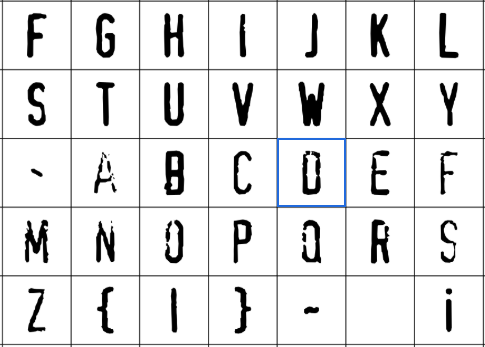
“You wouldn’t steal a car” anti-piracy campaign may have used pirated fonts
Aquilina, who was speaking generally and not on the specifics of the anti-piracy campaign and its font use, said that using a font from a free source, with an “effectively implied license to use it,” could be “a good defense,” though “not a complete defense.” Typically, a rightsholder would go after websites distributing copies of their font, not after users of the end product.
Fonts used commercially that happen to be exact copies of existing and copyrighted fonts are “fairly common,” Aquilina said, “simply because of the popularity of certain fonts and a desire to use them, to create a certain aesthetic.” But, he said, there is “a very small percentage that could be, or are, litigated.” Even with software licenses at issue, a type foundry faces an uphill battle, as witnessed in the battle over Shake Shack’s typography (paywalled).
Still missing: the source of XBand Rough
So where did Xband Rough come from?
The styling of the font name, “XBAND Rough” with the first noun in all-caps, calls to mind the early online gaming network XBAND, launched in 1994 and discontinued in 1997. In some XBand packages, a similar “rough” style can be seen on the lettering. The PDF sleuth, Rib, noted that XBAND Rough “came out four years after the original” (about 1996) and was “near-identical, except for the price.”
Another Bluesky user suggests “a plausible explanation” for the font, suggesting that Xband may have licensed FF Confidential and then given it the internal name “Xband Rough.” A copy of the font with that name could have been extracted from some Xband material and then “started floating around the Internet uncredited.” In the end, though, the real answer is unclear.
The original “You Wouldn’t Steal a Car” campaign was simple to the point of being simplistic. IP law isn’t really like “stealing a car” in many cases—as has made clearly once again by the recent Xband Rough investigation.